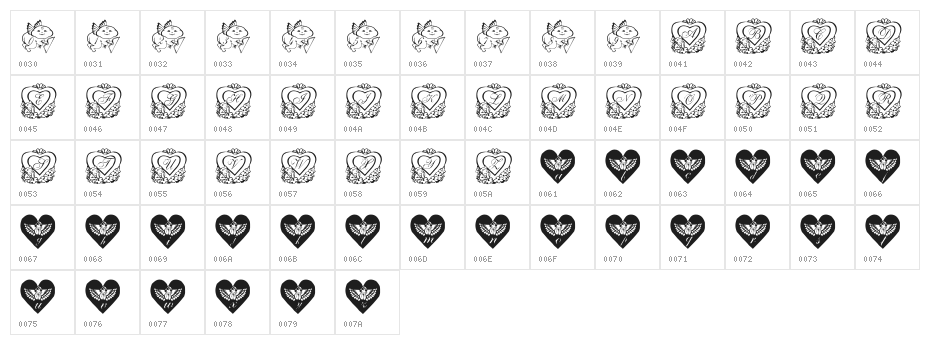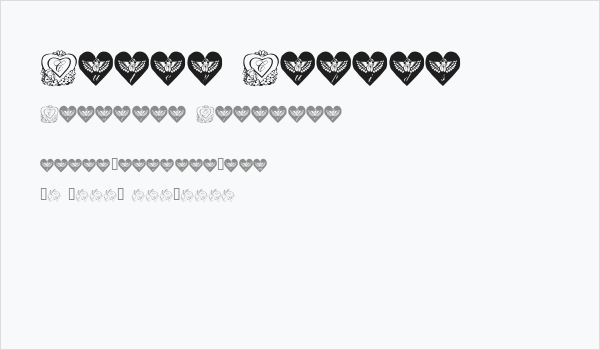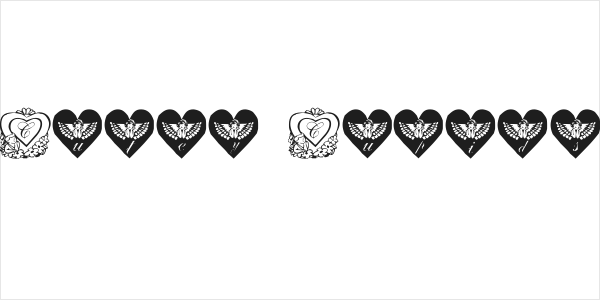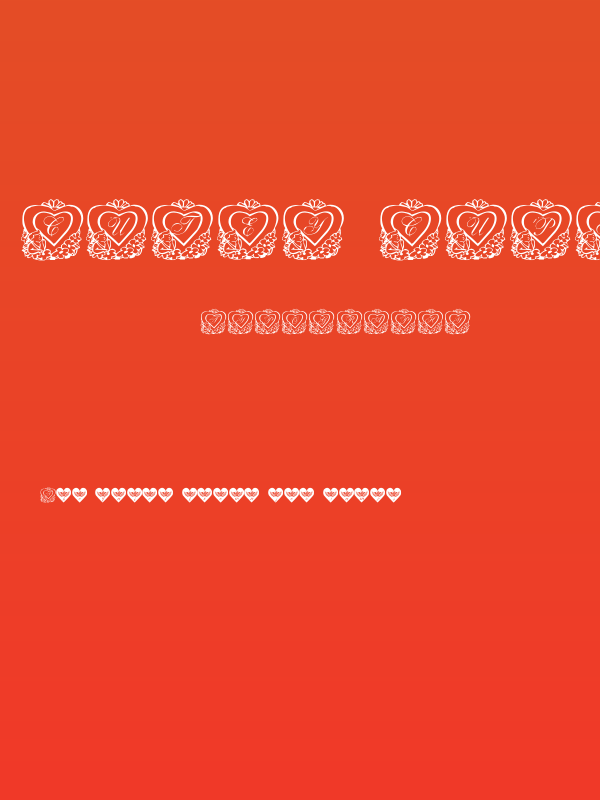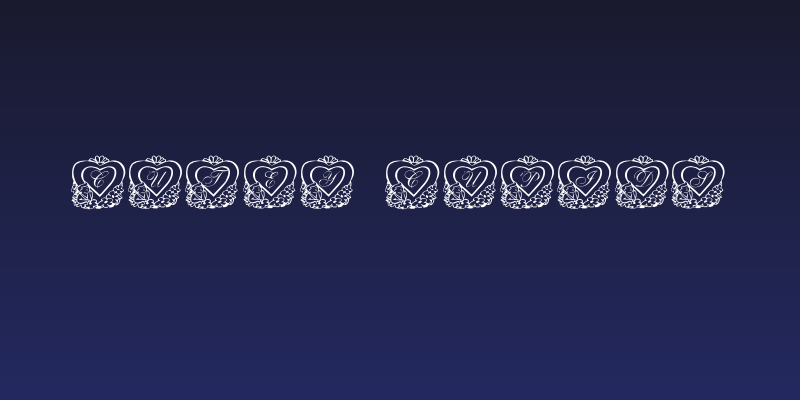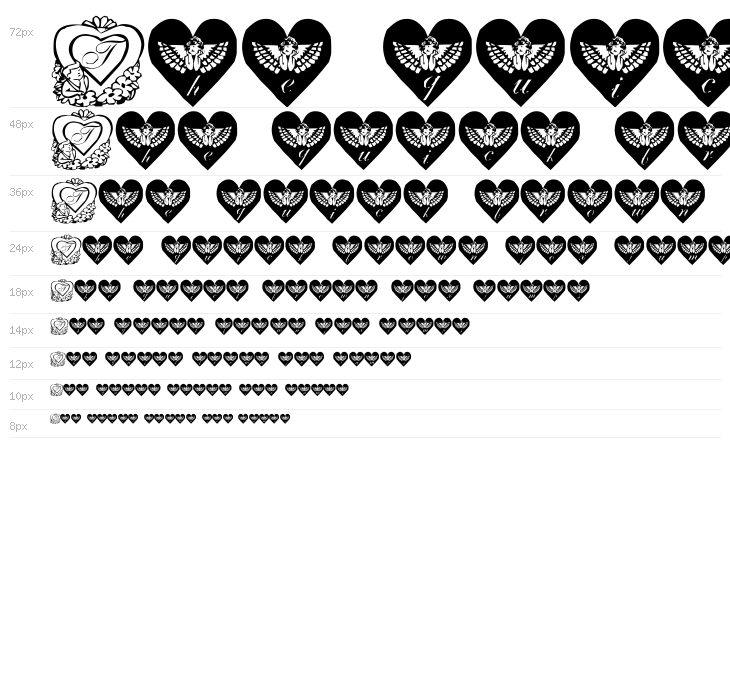
Cutey Cupids Font
Cutey Cupids Description
This is not a traditional font but rather a collection of decorative elements featuring whimsical, playful designs. The imagery includes heart shapes with intricate patterns and cherubic figures, evoking a sense of romance and charm. These elements are more suited for decorative purposes rather than textual communication. The designs are consistent in style, featuring detailed line work and a playful aesthetic that could be used to embellish creative projects.
| Use Case | Decorative embellishments |
| Proposed Projects | Ideal for use in greeting cards, wedding invitations, scrapbooking, and other romantic or whimsical design projects. |